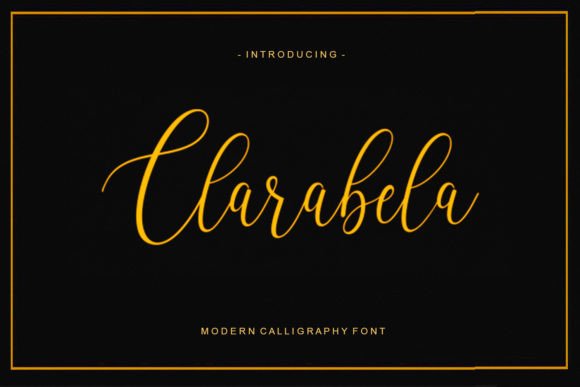
Introducing Clarabela Font, the Exquisite Script Designed to Evoke Elegance and Style
Immerse yourself in the world of Clarabela Font, a stunning creation by SpaceStudio that exudes elegance, charm, and sophistication. With its captivating handwritten strokes and varied baselines, Clarabela is an artistic masterpiece that transforms your creative visions into mesmerizing realities.
Unleash Your Creative Potential with Clarabela Font
Step into a realm of endless possibilities as you explore the versatility of Clarabela Font. Its smooth, clean, and feminine characteristics make it the perfect choice for a wide range of projects, including logos, magazines, menus, books, invitations, wedding and greeting cards, packaging, labels, t-shirts, and countless other creations. Let your imagination soar as you bring your designs to life with the captivating allure of Clarabela Font.
Craft Timeless Memories with Clarabela's Baby-Friendly Appeal
Embrace the joy of new beginnings as Clarabela Font becomes your trusted companion in crafting baby-related designs. Its enchanting and playful nature makes it an ideal selection for baby onesies, capturing the essence of innocence and wonder. Celebrate the arrival of a precious life, announce special moments, or simply express your love and affection with Clarabela Font as your creative partner.
Experience the Exquisite Details of Clarabela Font
Beyond its visual appeal, Clarabela Font boasts a symphony of intricate details that elevate your designs to new heights. Its carefully crafted ligatures, alternates, and swashes add a touch of artistry and finesse, ensuring that your creations stand out from the ordinary. Explore the boundless possibilities of Clarabela Font as you unveil hidden gems that transform your designs into captivating masterpieces.